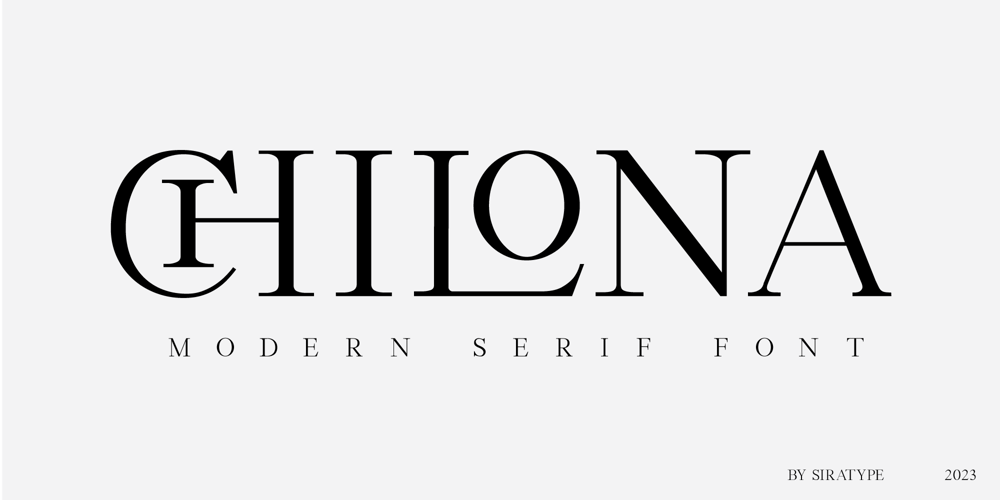
Chilona Font Family was designed by Nassira Boufelja and published by Siratype. Chilona contains 1 styles and family package options. Chilona: A modern serif font that seamlessly marries classic elegance with contemporary design. Its timeless serifs and sleek lines bring sophistication to any project. Chilona maintains both readability and beauty, making it suitable for headlines and body text. It supports multiple languages and ensures consistent aesthetics in print and digital media. WHAT’S INCLUDED?Chilona Regular (uppercase & lowercase)Numbers & punctuationLigature & Huge Stylistic alternateMultilingual support.